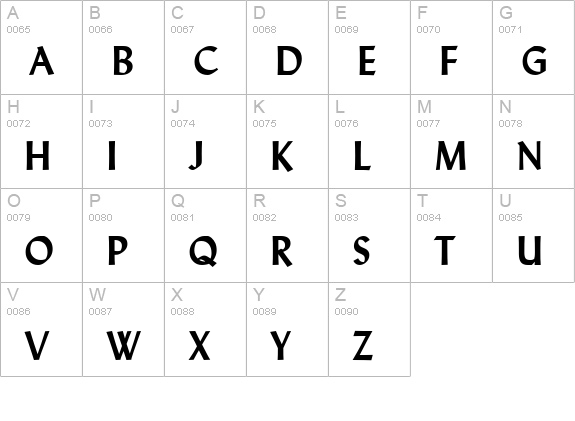
Lynda Bold is a strong, high-contrast variant in the Lynda typeface family \xE2\x80\x94 well suited to headlines, attention-grabbing titles, and strong calls-to-action.
Lynda Bold font is a stunning display typeface that exudes elegance and sophistication. Its clean lines and strong presence make it perfect for creating eye-catching designs that demand attention. With its bold and impactful letterforms, Lynda Bold font is ideal for headlines, logos, posters, and more. The best part? Lynda Bold font is completely free to download at FontsMarket.com! This means you can add this beautiful font to your collection without spending a penny. Don't miss out on the opportunity to elevate your designs with the timeless appeal of Lynda Bold font. Download it today and start creating visually stunning projects that stand out from the rest.